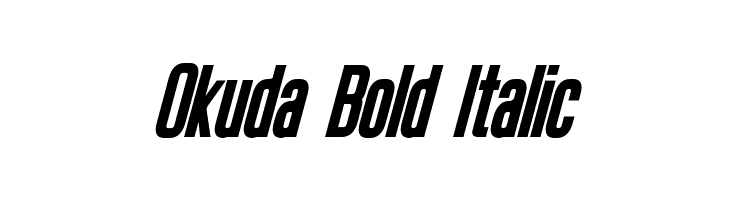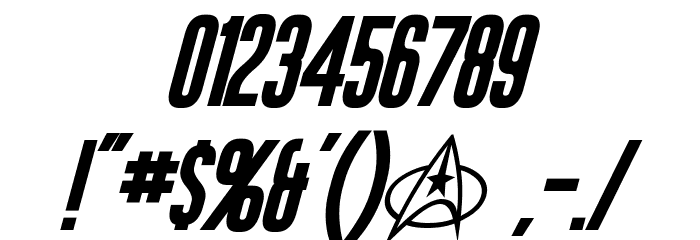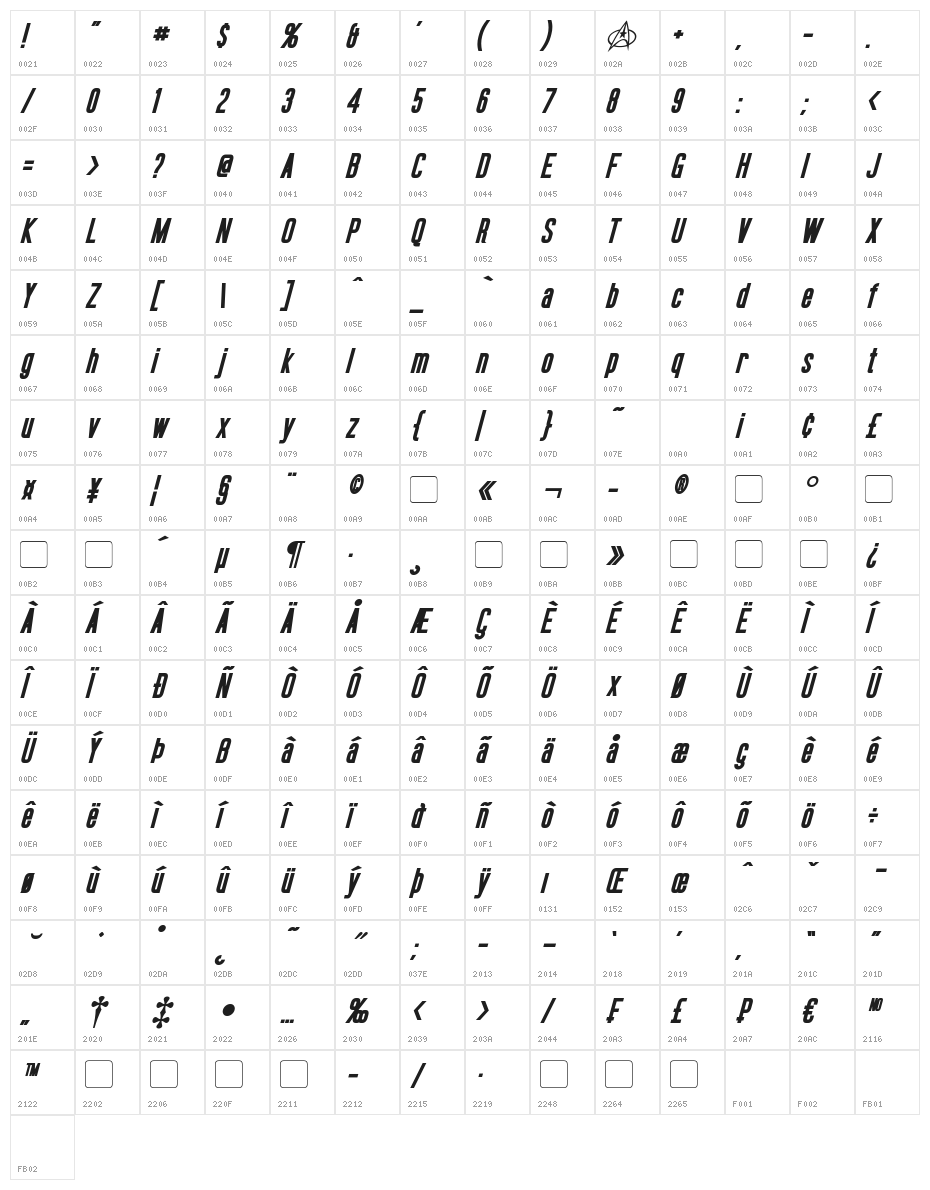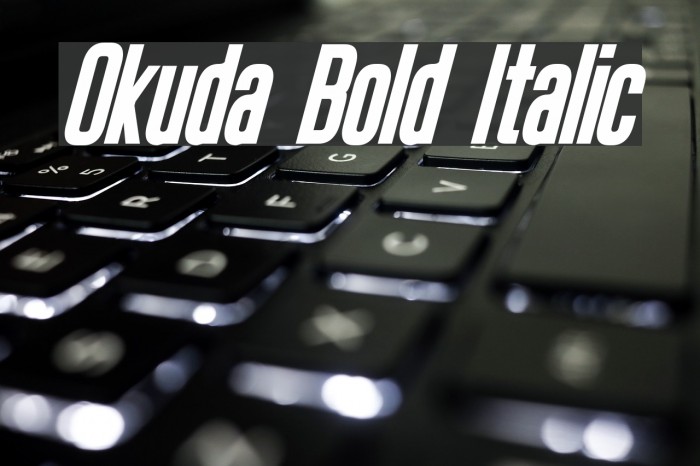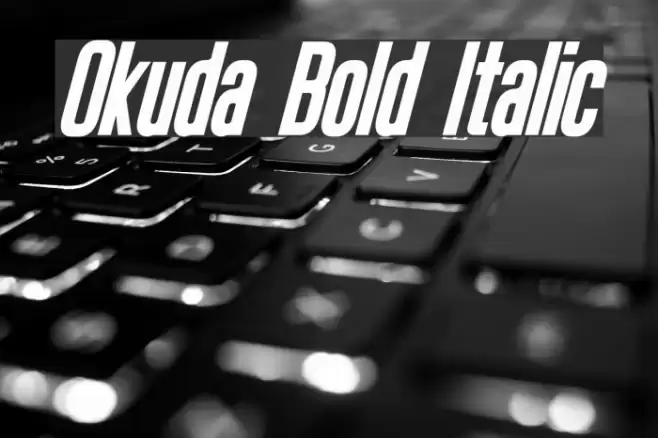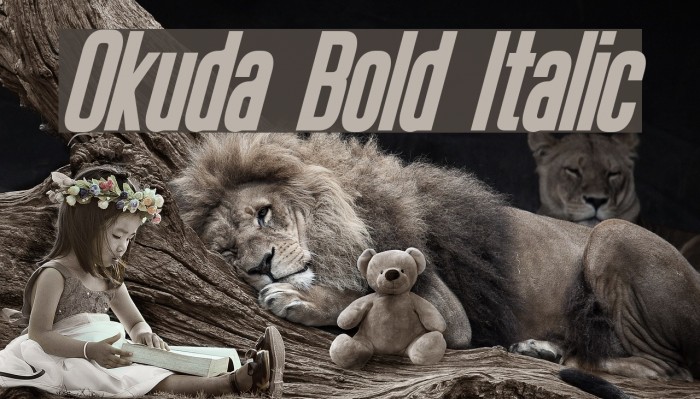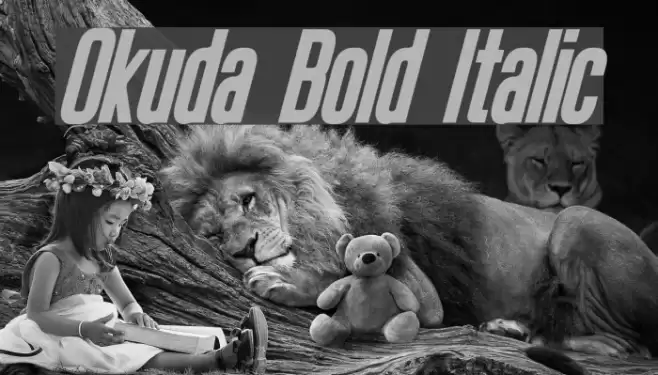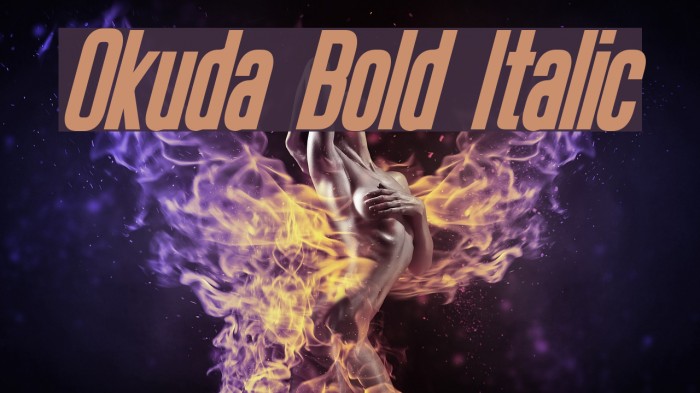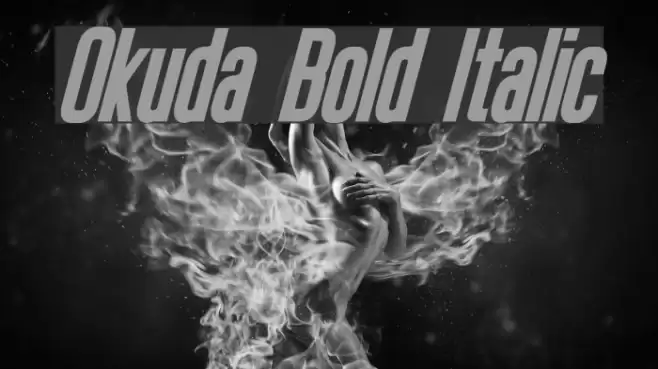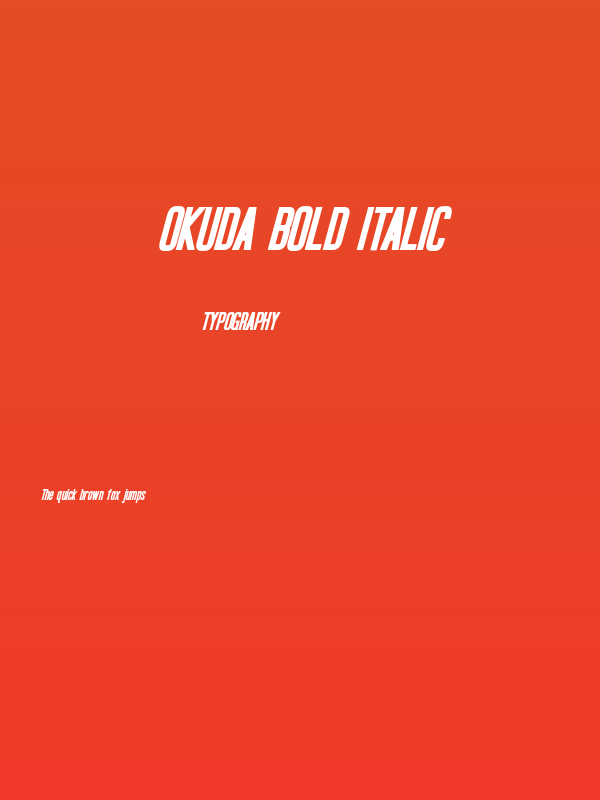
Okuda Bold Italic Font
Okuda Bold Italic Description
This font features a bold and italicized style, characterized by its strong and dynamic presence. The letters are slanted, giving a sense of motion and energy. The strokes are thick and consistent, providing a solid and impactful appearance. The uppercase and lowercase letters maintain a cohesive look, with sharp angles and clean lines. Numbers and special characters are designed to match the bold and italicized theme, ensuring uniformity across all elements. This font is suitable for projects that require a bold statement and a modern, edgy feel.